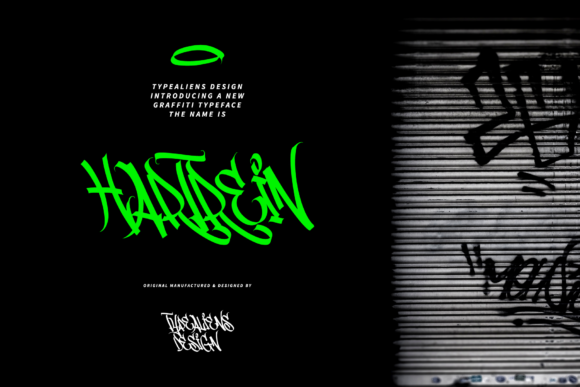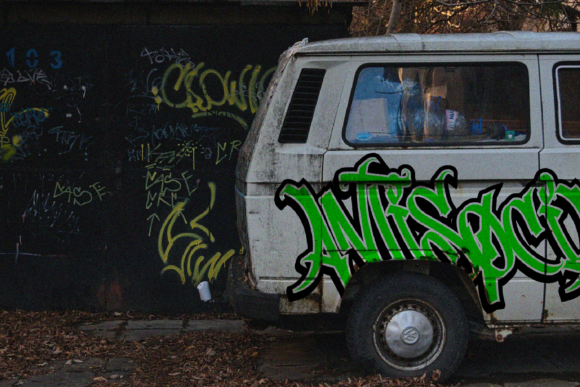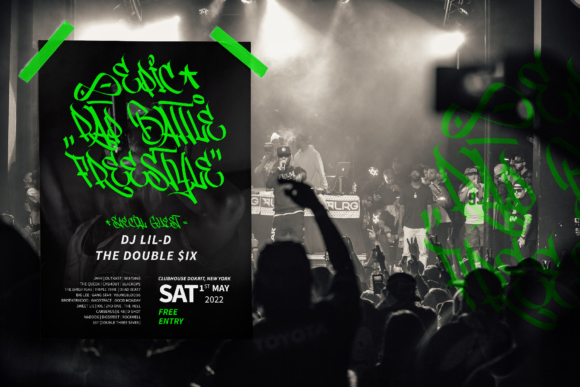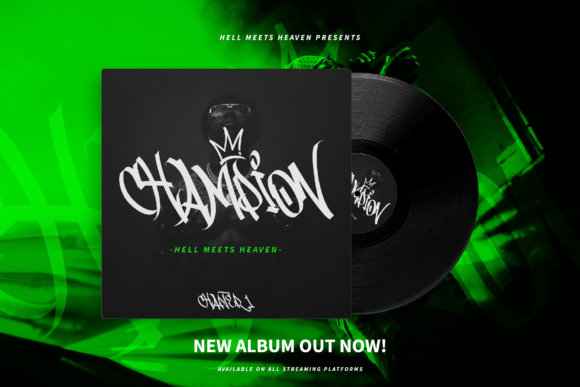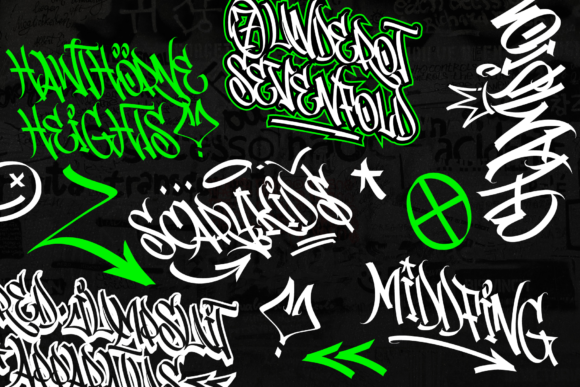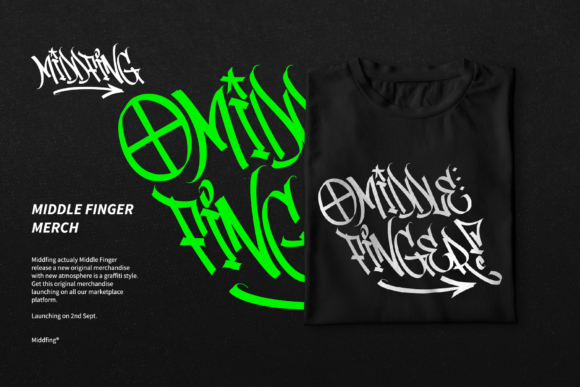
Introduction to Hartrein Font Font
Fonts play a crucial role in design, and the Hartrein Font font is a typeface that brings both character and versatility to any project. Whether you’re working on a branding project, a website, or a print design, the Hartrein Font font offers a unique style that can elevate your work.
Hartrein is an awesome, graffiti-styled display font that has a futuristic, street art vibe.
This font is suitable for designs such as t-shirts, sportswear, logos, advertisements, clothing, and more .
Key Features of Hartrein Font Font
Why Choose Hartrein Font Font?
The Hartrein Font font is more than just a typeface – it’s a design tool that helps you communicate your message with style and clarity. Its unique character set and versatile design make it suitable for a wide range of applications, from elegant invitations to bold headlines.
With its carefully crafted letterforms and balanced proportions, the Hartrein Font font ensures readability and visual appeal across all mediums.
What makes Hartrein Font font special?
The Hartrein Font font stands out with its unique design, exceptional readability, and versatility across various design applications.